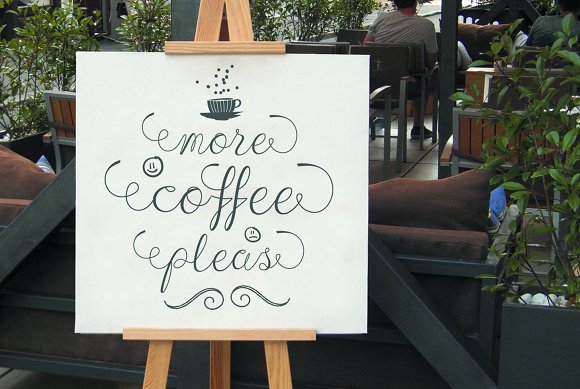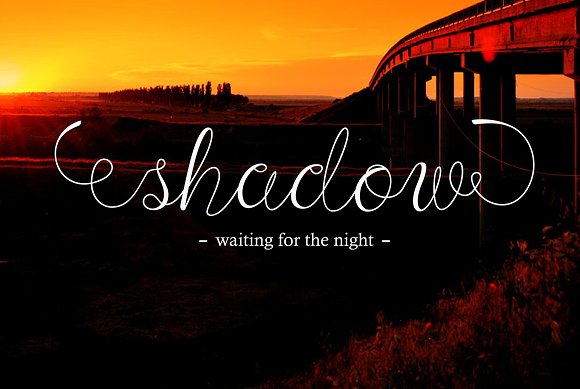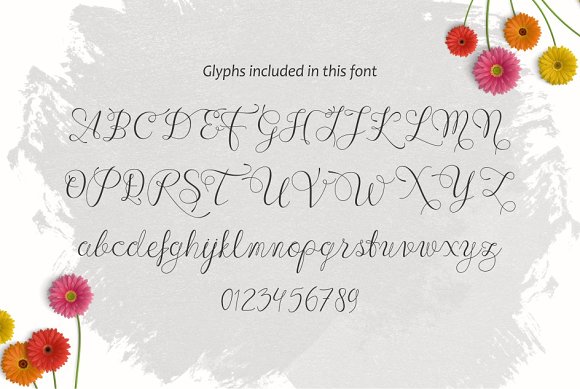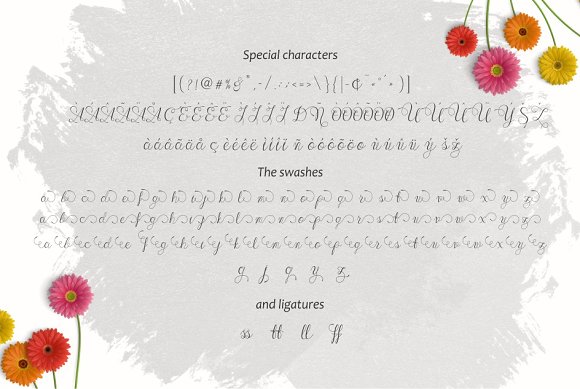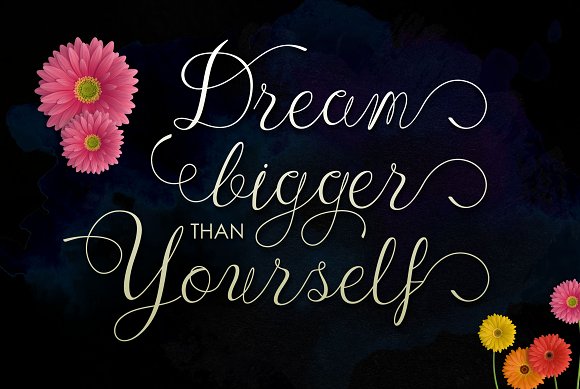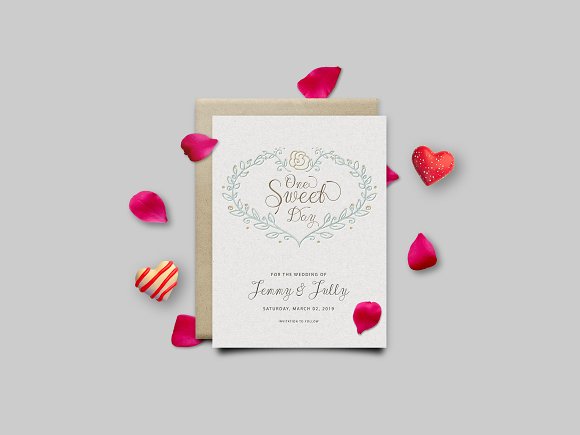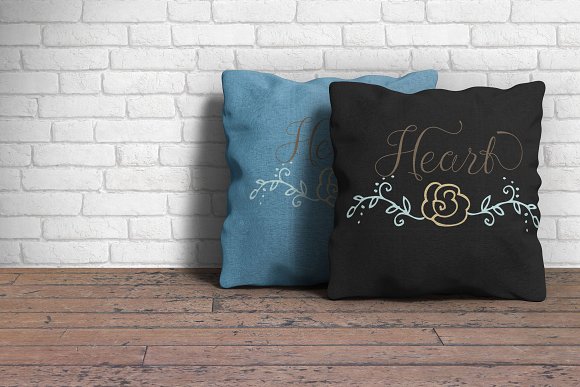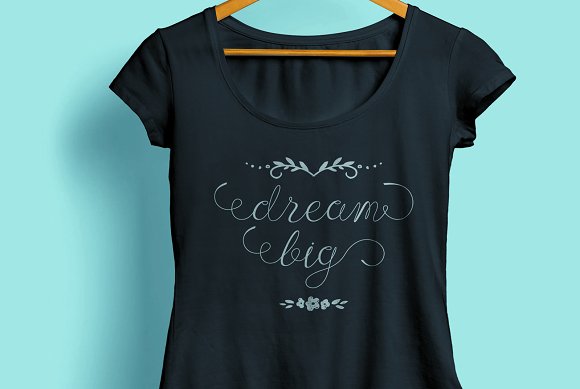
Wenny Script Font
About Wenny Script Font
Wenny Script is a fresh & modern script font.
This calligraphy-style font is completely hand made, comes with 272 glyphs with loads of alternates. The font is PUA encoded for easy access.
Wenny Script Features:
Uppercase & Lowercase
International Language & Symbols Support
Punctuation & Number
Standard Stylistic Alternates
Stylistic Set 1-4